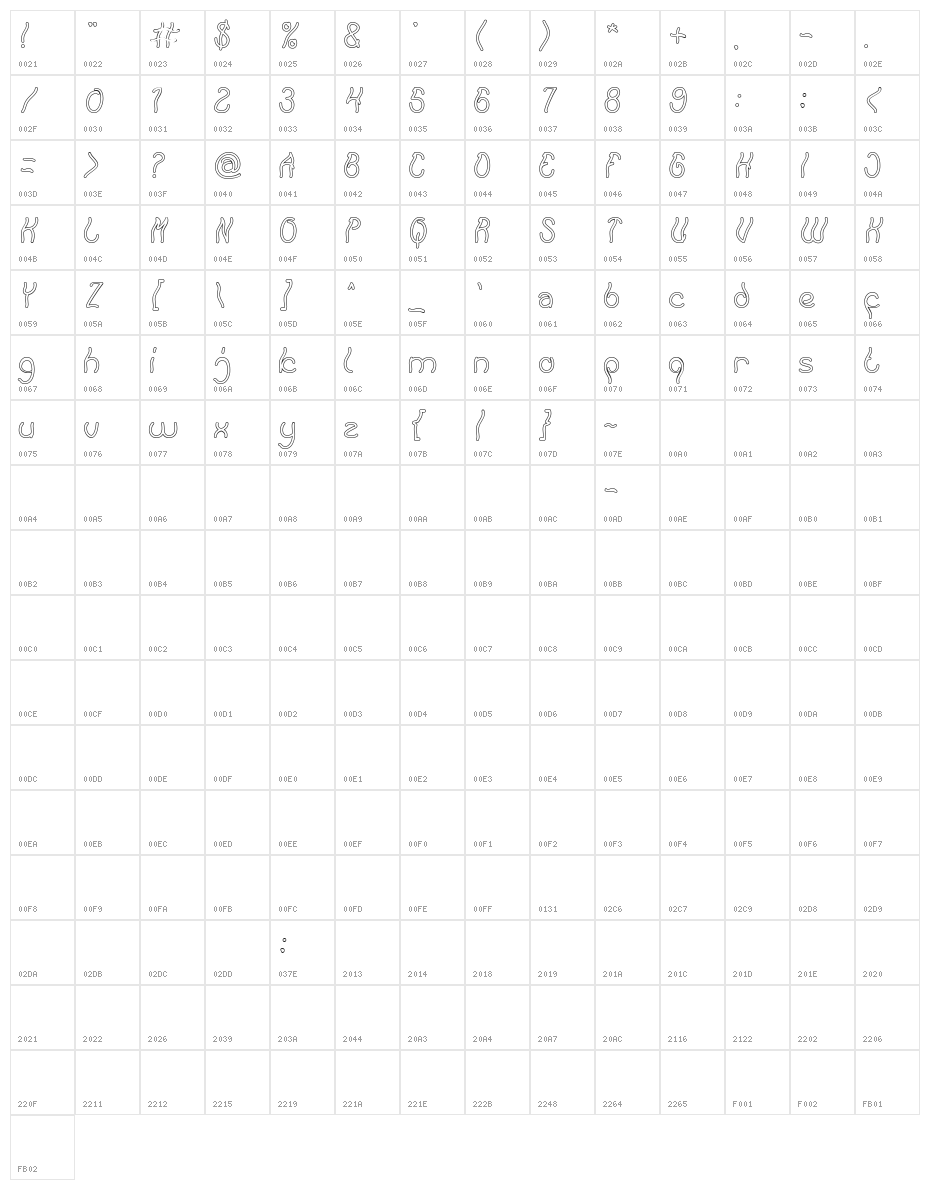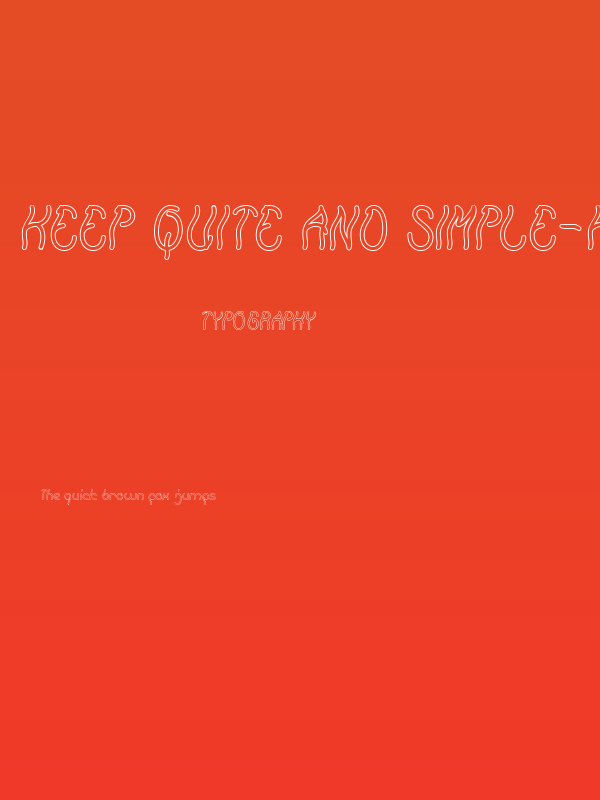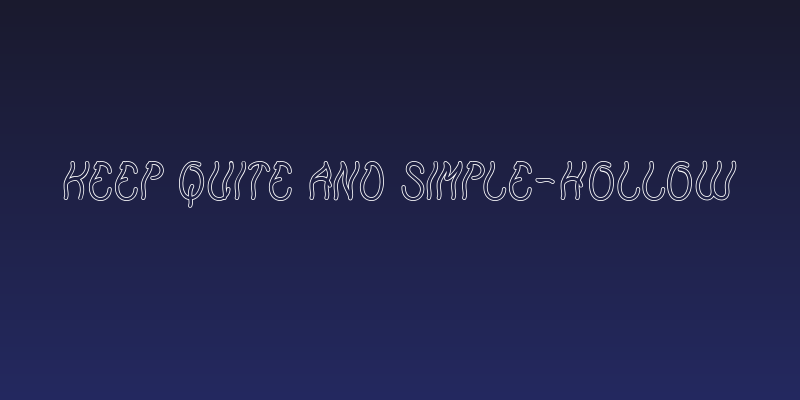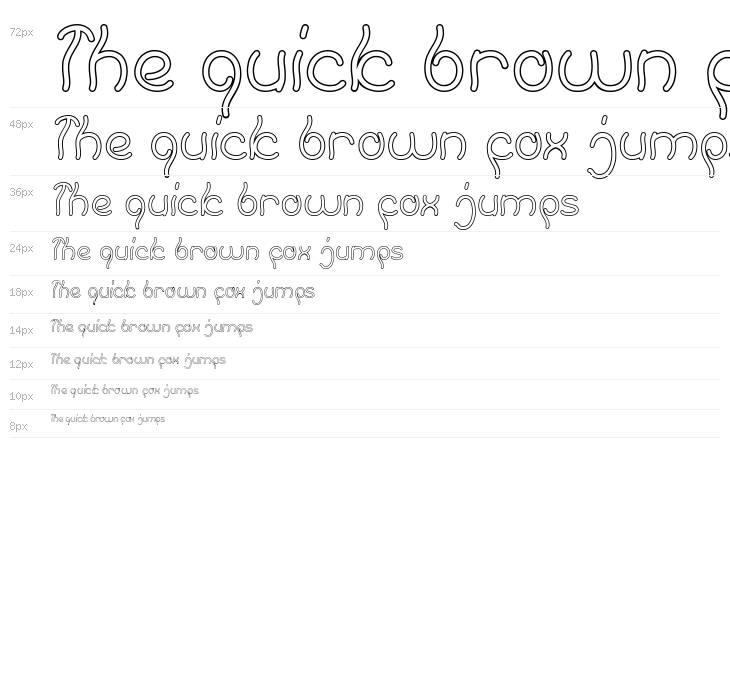
Keep Quite and Simple-Hollow Font
Keep Quite and Simple-Hollow Description
This font features a unique hollow design with a playful and whimsical style. Each character is outlined, creating a light and airy appearance. The letters have a consistent thickness, giving them a uniform look while maintaining a sense of fun and creativity. The rounded edges and smooth curves contribute to its friendly and approachable feel. This font is particularly eye-catching and can add a distinctive touch to any project. The hollow nature of the characters allows for creative layering and coloring, making it versatile for various design applications.
| Proposed Projects | Ideal for children's book covers, playful branding, creative posters, and artistic invitations. |